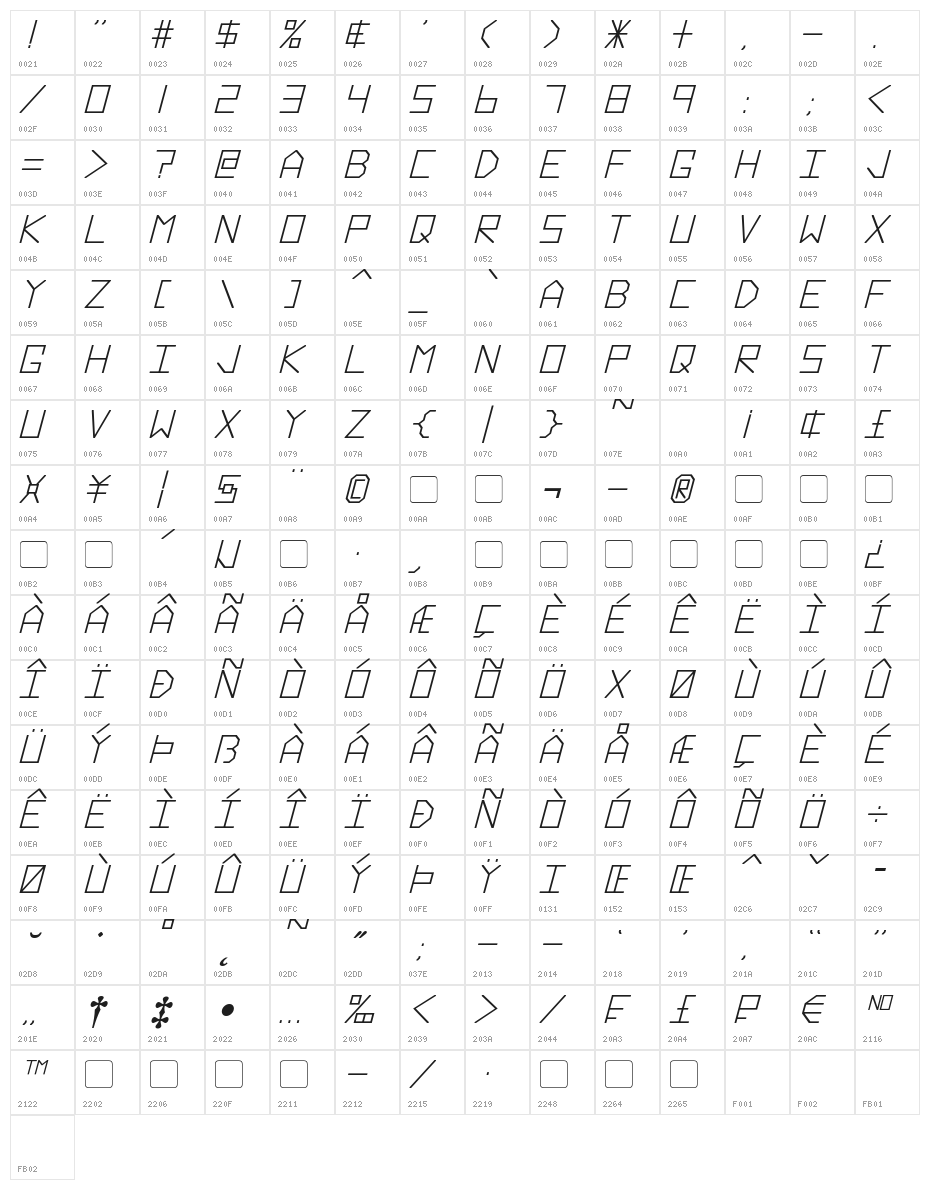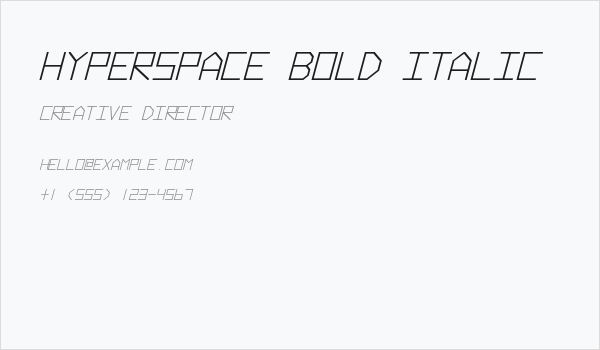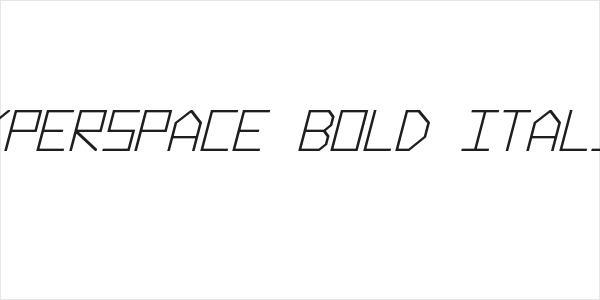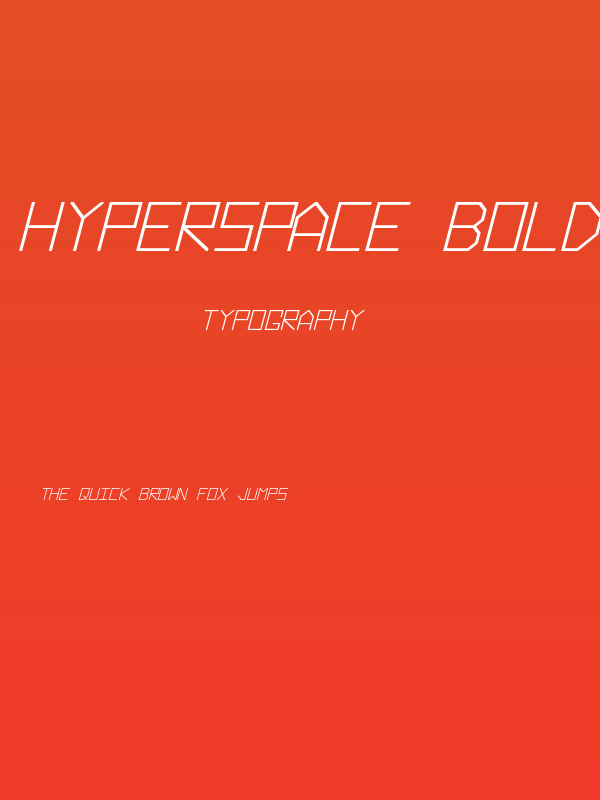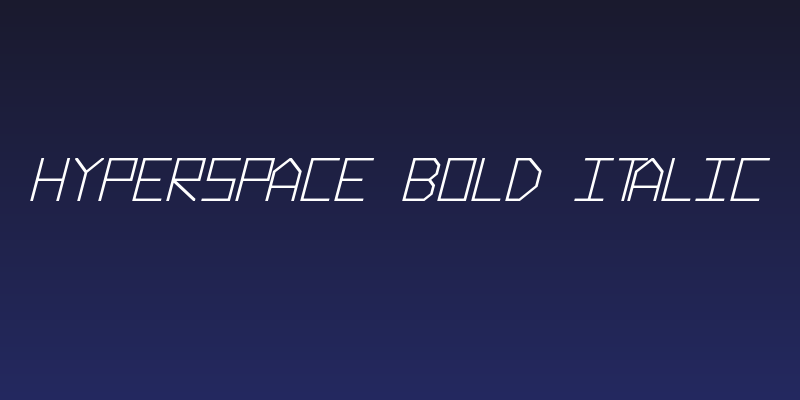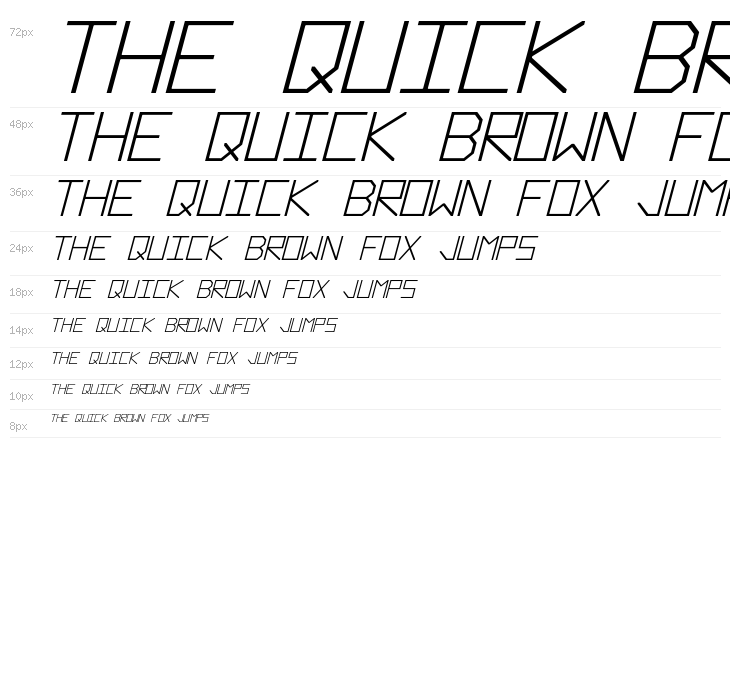
Hyperspace Bold Italic Font
Hyperspace Bold Italic Description
This font features a futuristic and angular design, characterized by its sharp edges and geometric shapes. The letters are slanted, giving it an italicized appearance, while maintaining a bold presence. The uppercase and lowercase letters share a consistent style, with a uniform stroke width that contributes to its modern and sleek look. The numerals and special characters are designed to match the angular theme, ensuring a cohesive appearance across all glyphs. This font's unique style makes it stand out, ideal for projects that require a contemporary and tech-inspired aesthetic.
| Proposed Projects | Ideal for sci-fi themed designs, tech branding, video game titles, and modern posters. |